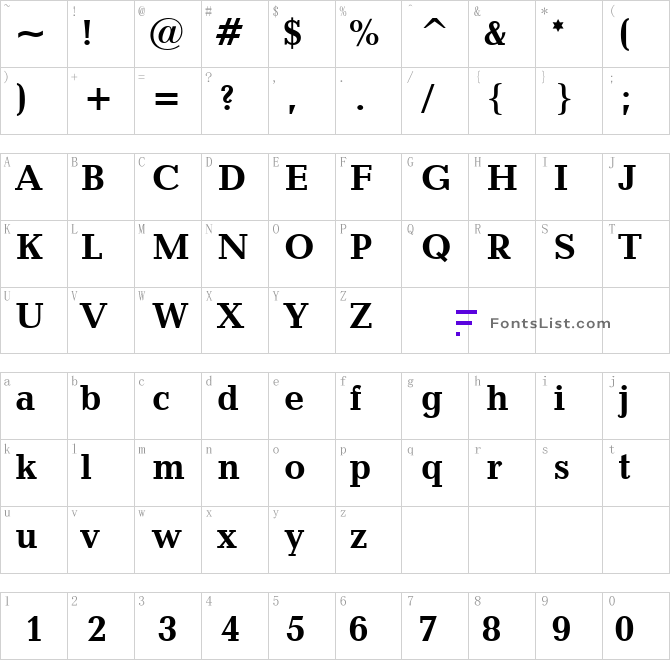
- Font Name:Candida BT
- Subfamily:Candida Bold, Humanist Slabserif 671
- Full Name:Candida BT Bold
Candida-BT-Bold.ttf is a very beautiful artistic font, Candida-BT-Bold.ttf is widely used in the design and printing of various books and pictures,Candida-BT-Bold.ttf has a strong visual impact,Candida-BT-Bold.ttf is a commonly used font in newspapers, magazines and books, and is used in posters, e-commerce Poster design, store design, logo design, font design and other fields.Candida-BT-Bold.